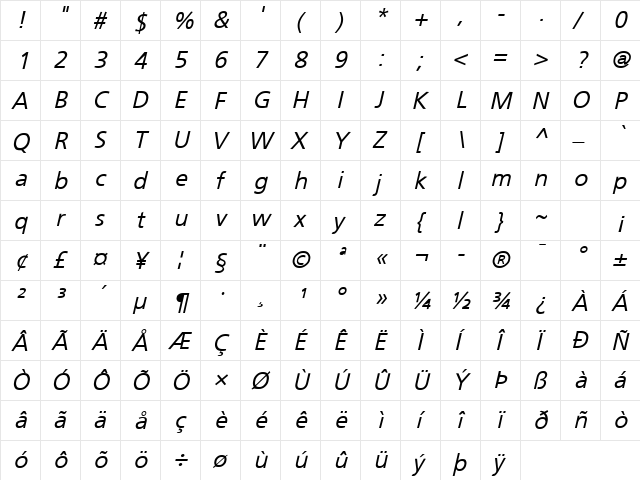
Weissach Oblique
Design Context for Weissach Typeface
Weissach takes a measured approach to typography — its balanced proportions and neutral character make it a reliable workhorse for both digital and print work. Its italic angle brings a sense of urgency and motion to the letterforms.
Pro Tip: Try Weissach for annotation and caption copy alongside an upright companion — the contrast in angle creates a dynamic but ordered typographic system.